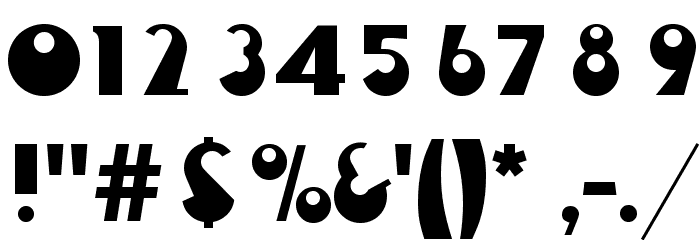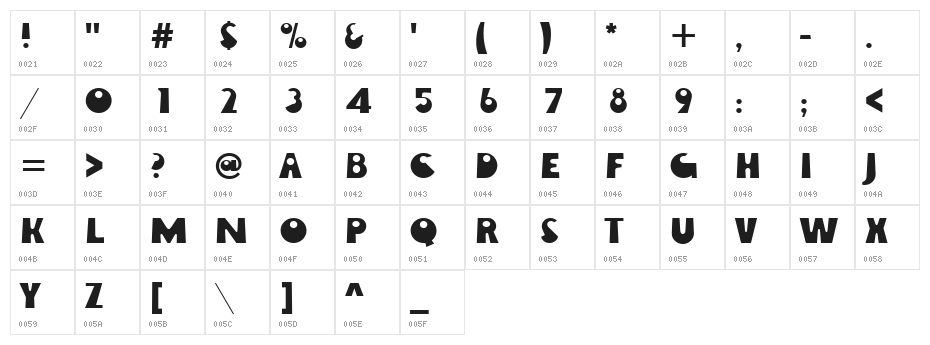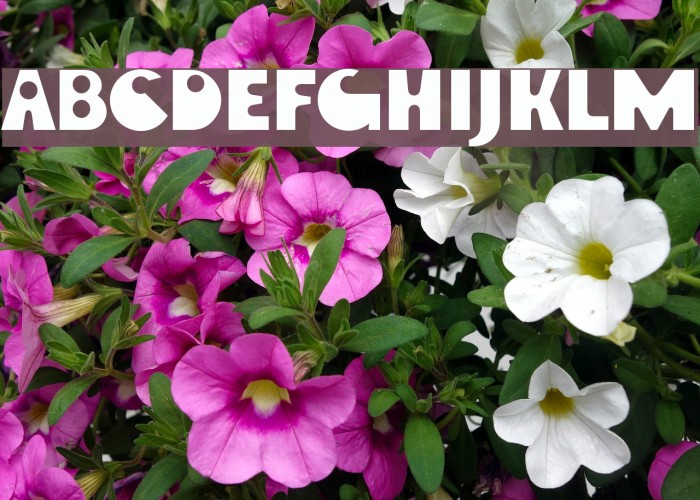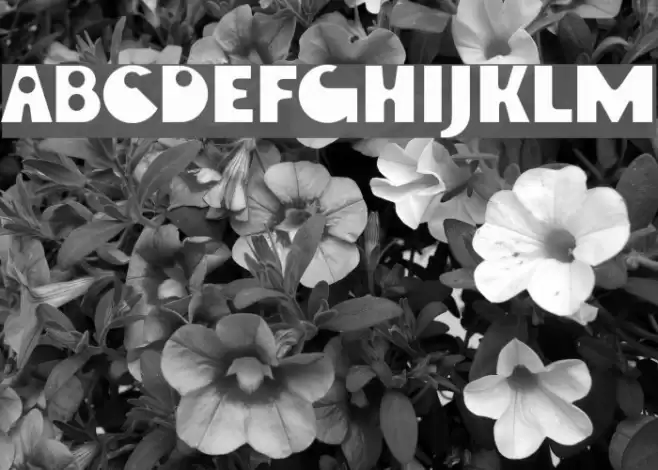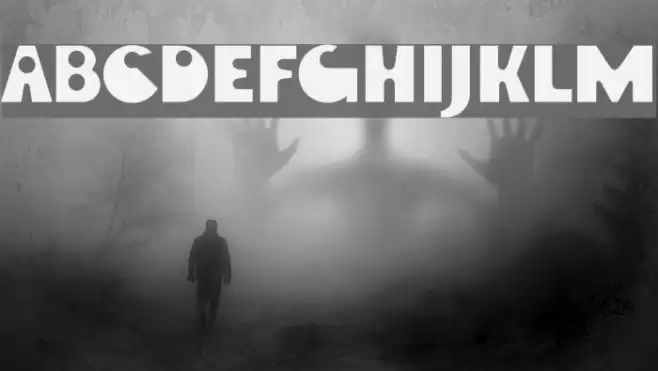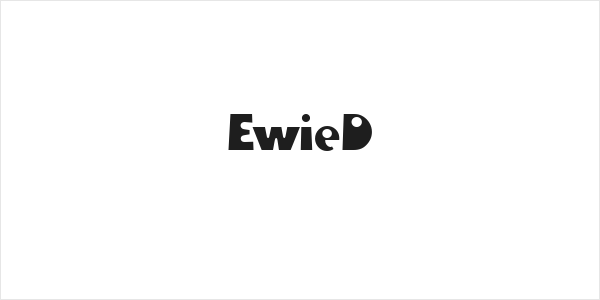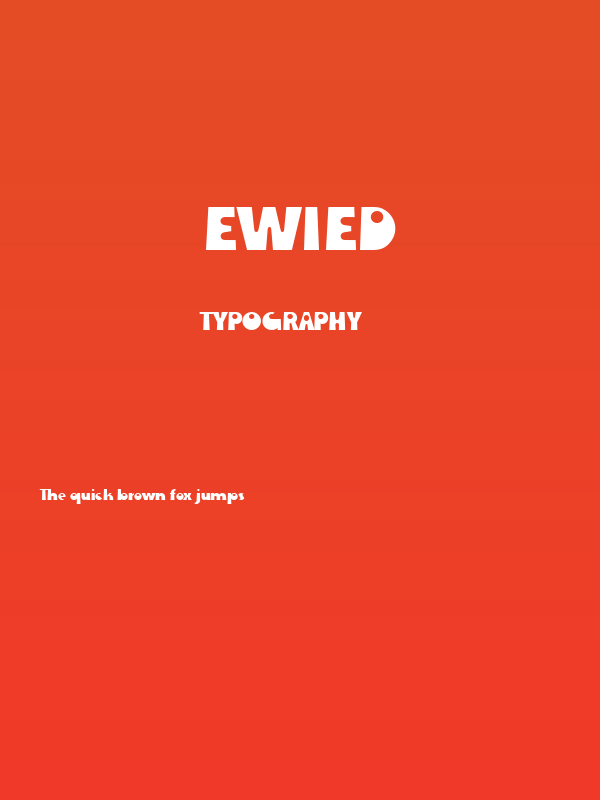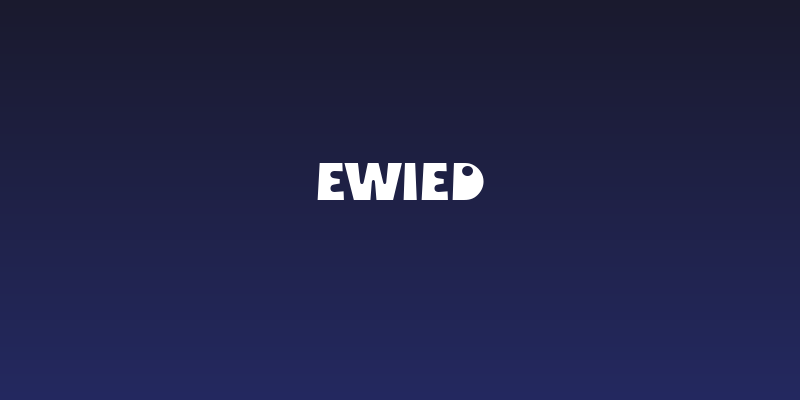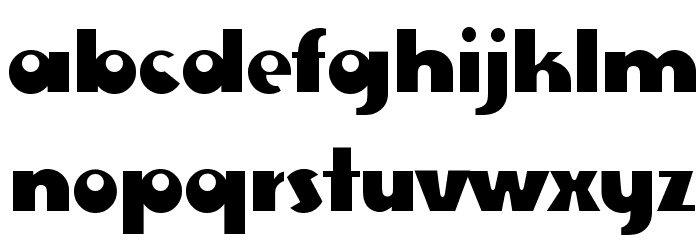
EwieD Font
EwieD Description
This font features bold, geometric shapes with a strong presence. The uppercase letters are characterized by their solid, block-like forms, while the lowercase letters maintain a consistent weight and rounded appearance. The numerals are equally bold, with a distinctive style that complements the alphabet. Special characters are designed to match the overall aesthetic, offering a cohesive look across all glyphs. The font's design is modern and impactful, making it suitable for attention-grabbing applications.
| Proposed Projects | Ideal for branding, poster design, headlines, and any project requiring a strong visual impact. |